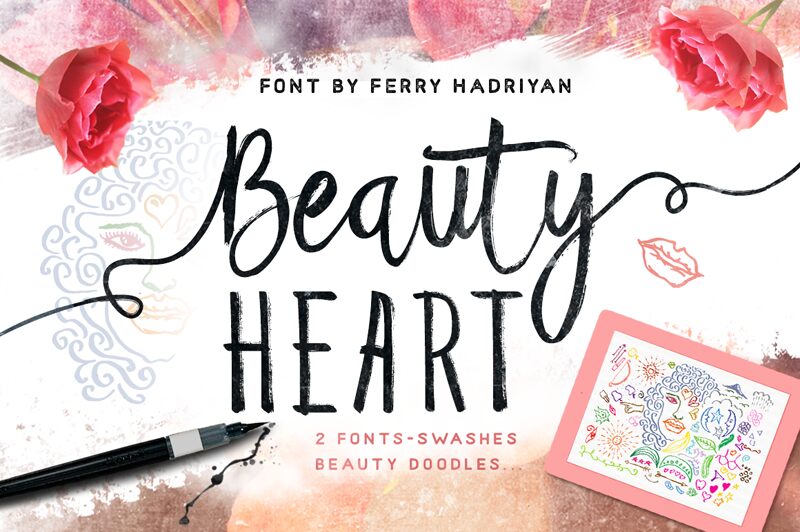
Beauty Heart Doodles font, part of the Beauty Heart family designed by FHFont, showcases a delightful array of whimsical dingbats that elevate any design project. Each character bursts with personality, making it an enchanting choice for playful and imaginative layouts. The aesthetic charm lies in its hand-drawn quality-figures like smiling suns, graceful moons, and expressive clouds convey a sense of warmth and creativity.
This font excels in crafting inviting atmospheres in various applications. Ideal for children’s books, festive invitations, or vibrant social media graphics, its unique style appeals to both joy and nostalgia. With its captivating imagery, Beauty Heart Doodles adds a touch of magic to any visual narrative while drawing attention with an effortless elegance that resonates across diverse creative landscapes.
Beauty Heart Doodles